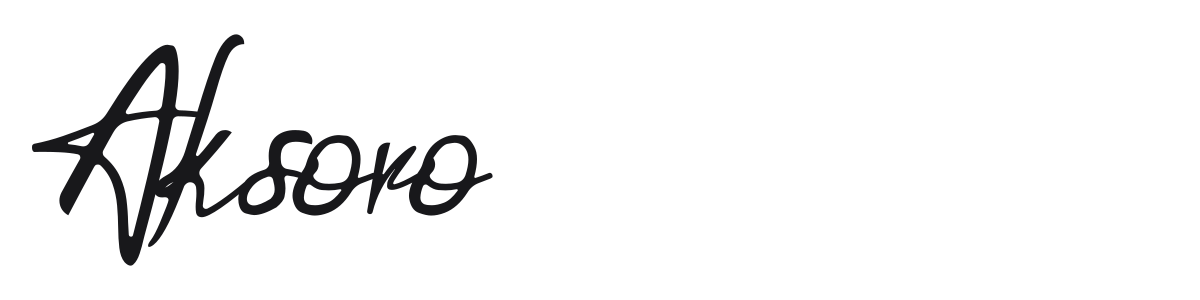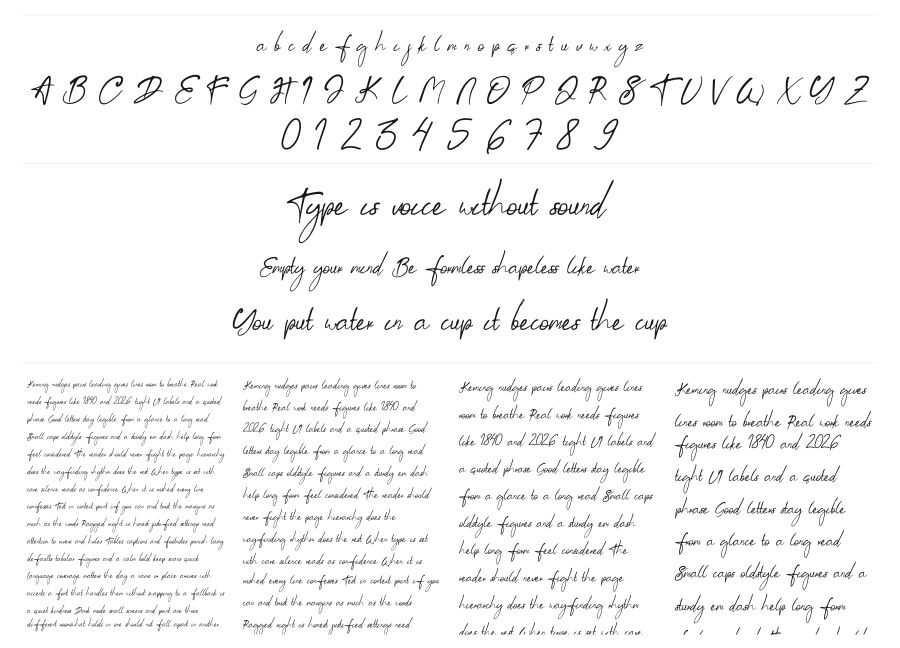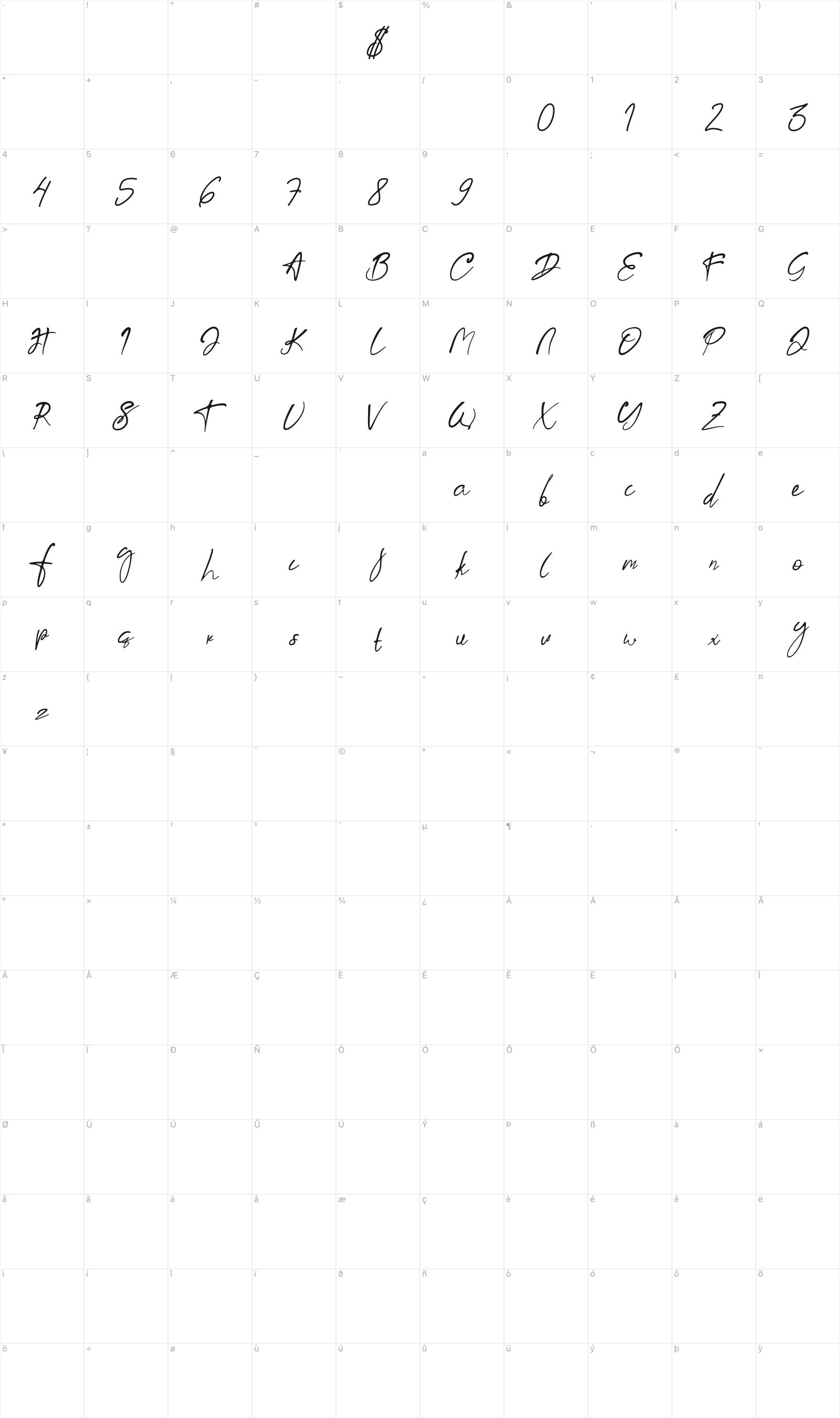
Aksoro
Aksoro is a casual handwritten script with the loose, flowing quality of a personal signature. Long sweeping ascenders and descenders give it an expressive, relaxed energy that feels spontaneous without being sloppy. It works well for branding, packaging, and any context that calls for a human, approachable touch.